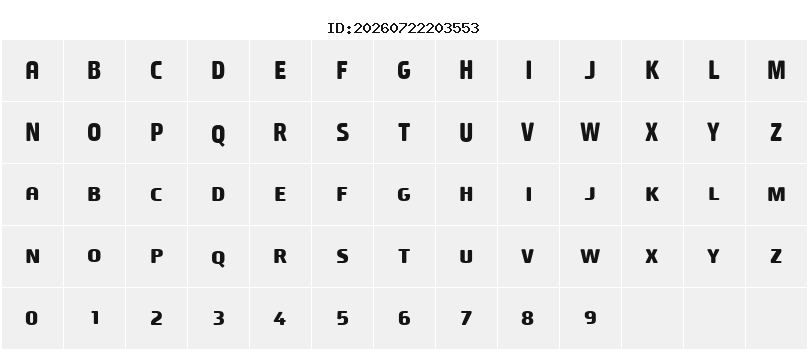
Mustardo Preview
• Font Name: Mustardo
• Full Font Name: Mustardo-SmallCaps
• PostScript Name: Mustardo-SmallCaps
About Mustardo.ttf
Mustardo.ttf is a modern, elegant sans-serif font designed for ultimate readability and visual harmony. Perfect for branding, headlines, web design, and print materials.